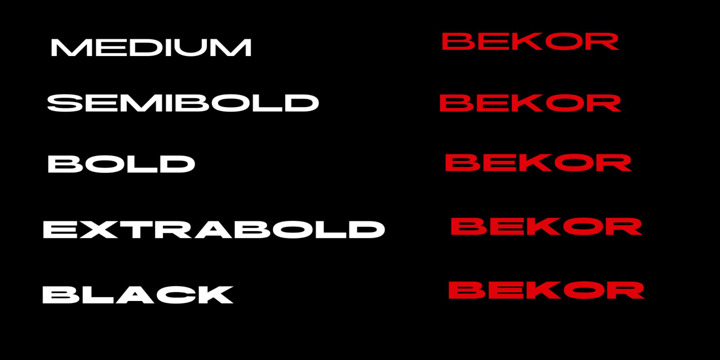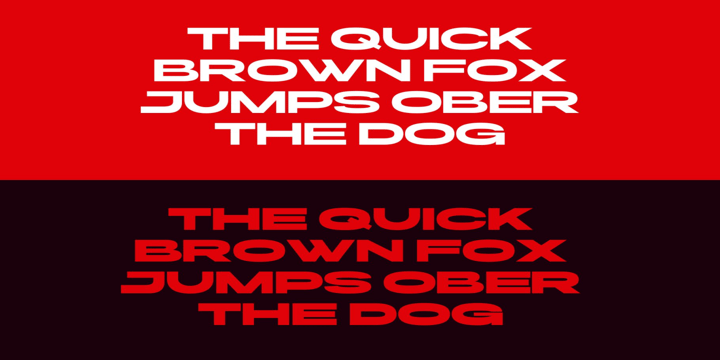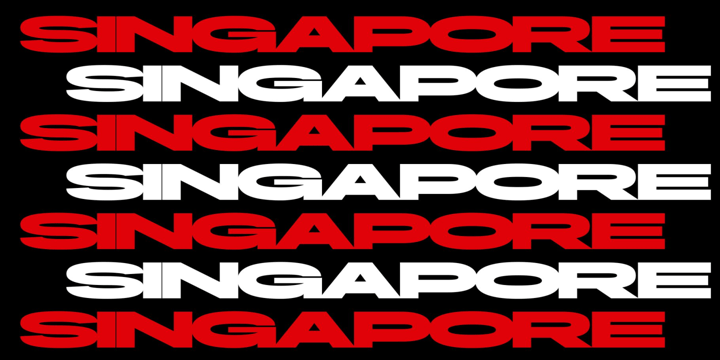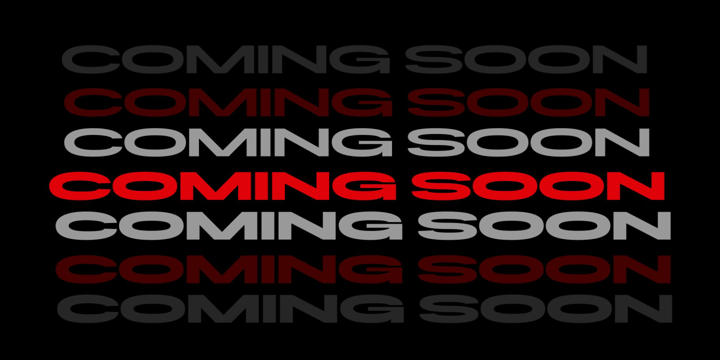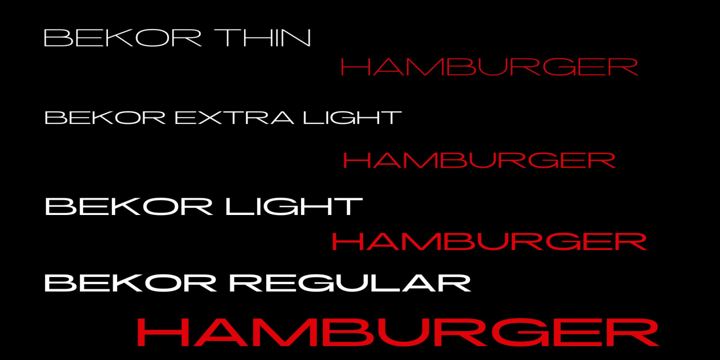
Bekor Extra Bundle
Bekor Extra Font Bundle is minimal and elegant collection of 10 typefaces with multilingual support. They are very versatile fonts that works great in large and small sizes.
This collection is perfect for branding projects, home-ware designs, product packaging, magazine headers - or simply as a stylish text overlay to any background image
Bekor Extra Font Bundle is minimal and elegant collection of 10 typefaces with multilingual support. They are very versatile fonts that works great in large and small sizes.
This collection is perfect for branding projects, home-ware designs, product packaging, magazine headers - or simply as a stylish text overlay to any background image